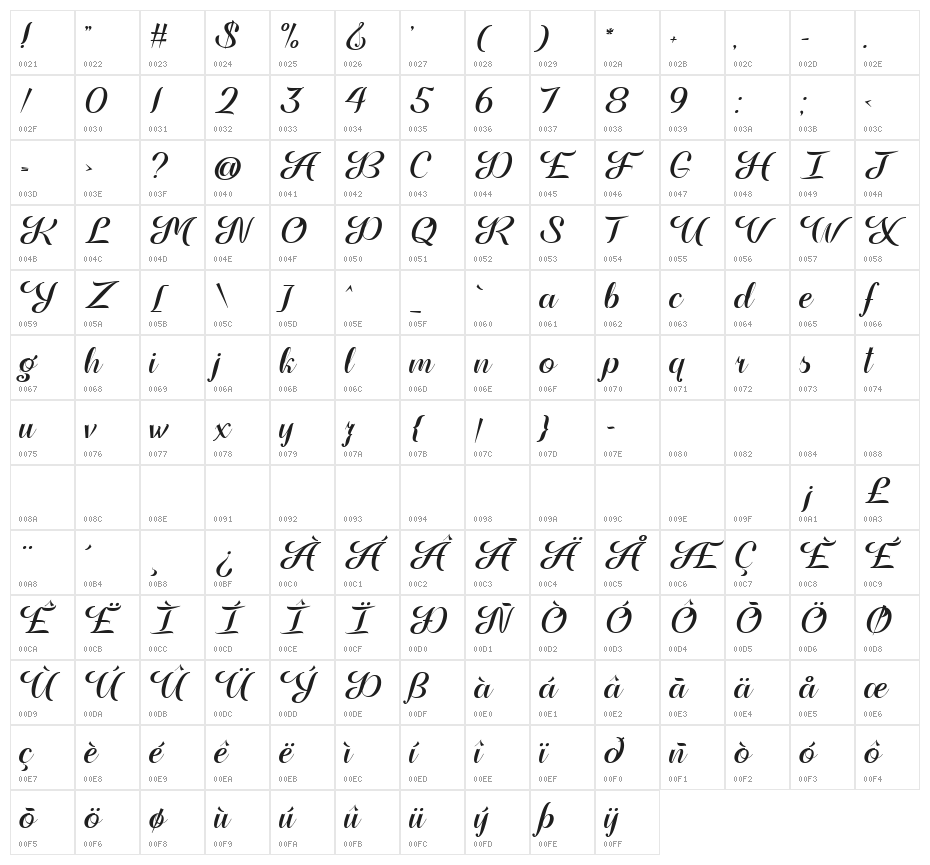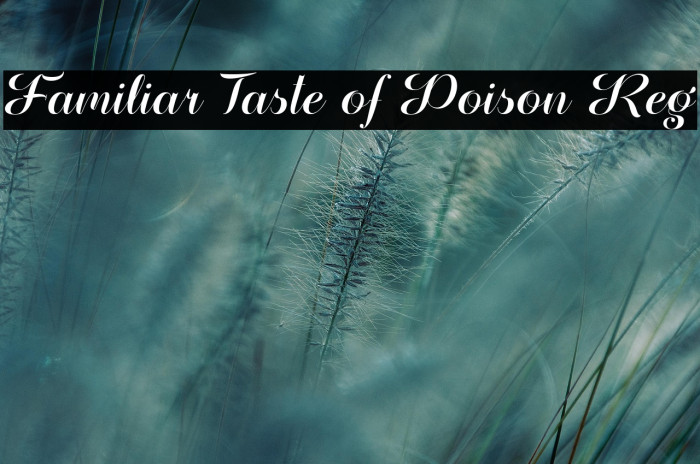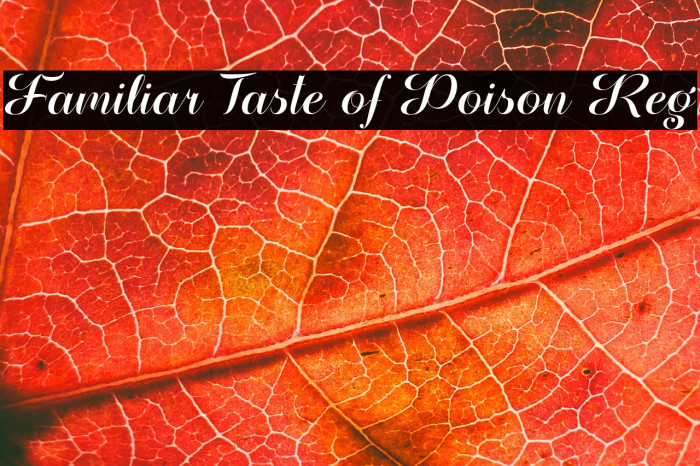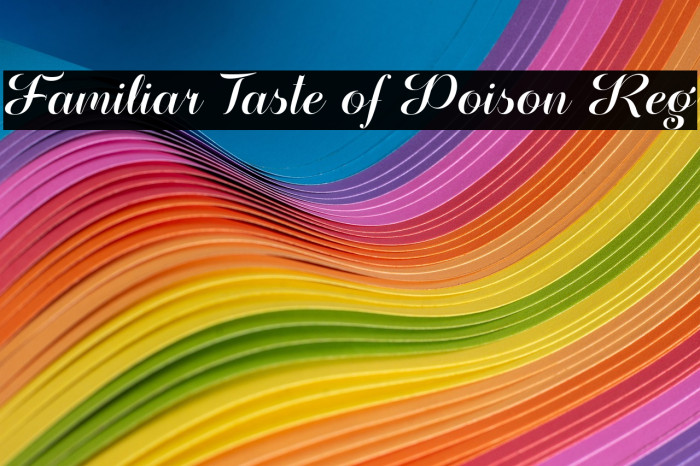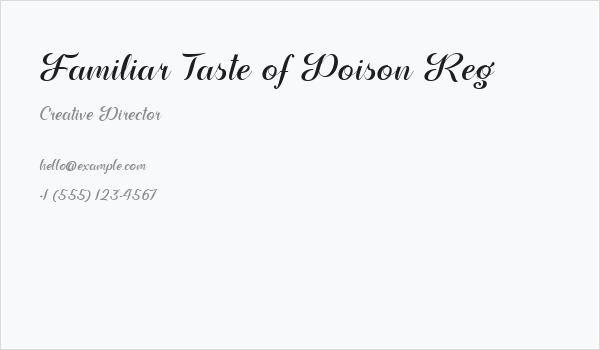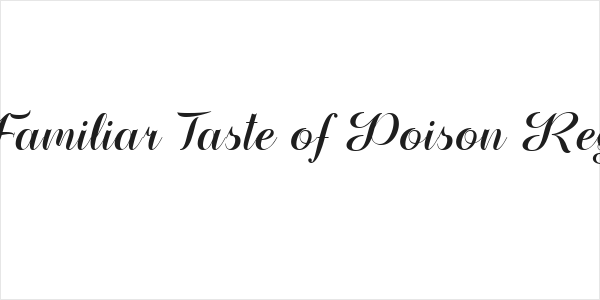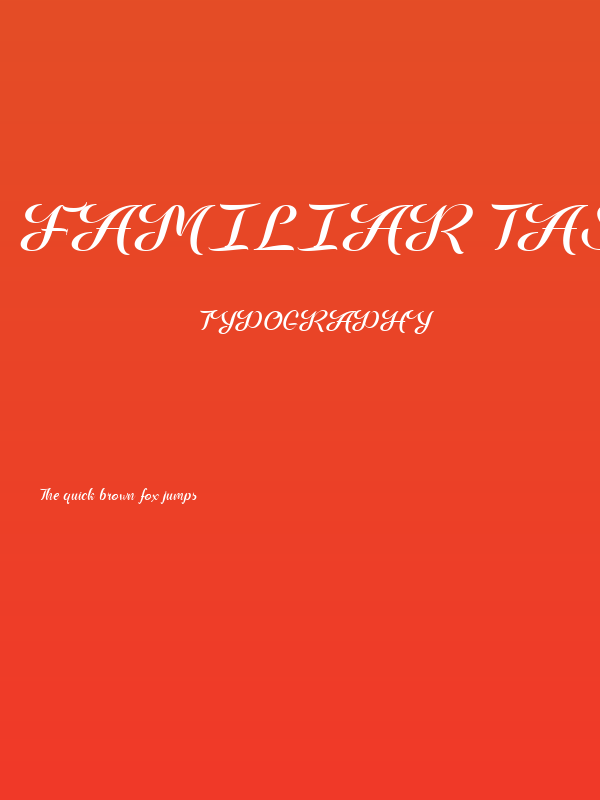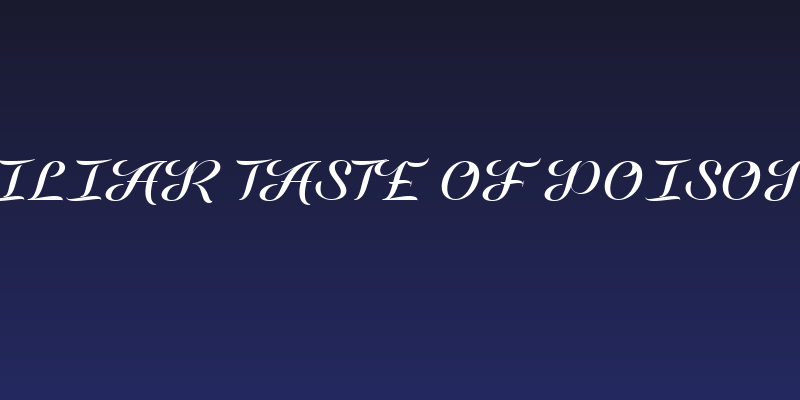
Familiar Taste of Poison Reg Font
Familiar Taste of Poison Reg Description
This font features an elegant and flowing script style, characterized by its cursive, handwritten appearance. The uppercase letters exhibit a sophisticated flair with sweeping curves and intricate loops, while the lowercase letters maintain a consistent fluidity that enhances readability. The numerals are designed with a similar aesthetic, ensuring a cohesive look across all characters. Special characters are thoughtfully integrated, maintaining the font's overall elegance. This font's design is perfect for adding a touch of sophistication and grace to any project.